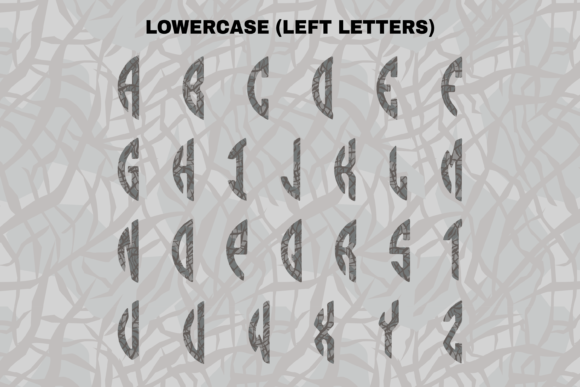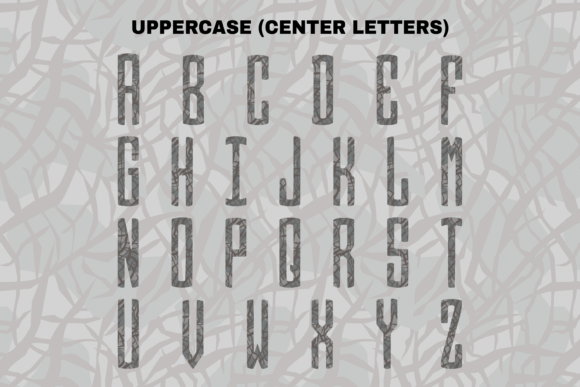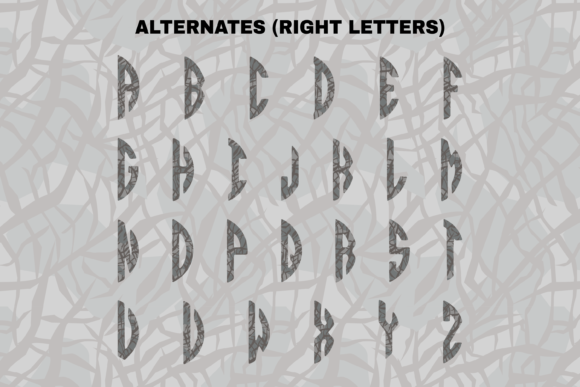
About Elephant Circle Font
Elephant Circle is a unique 3-letter monogram font that features adorable elephant-themed elements. With its customizable nature, this font allows you to create personalized designs effortlessly. Whether you’re working on custom designs, DIY crafts, or any other creative project, Elephant Circle will add a lovely touch. Here are some key features and potential uses for this font:
1. 3-Letter Monogram: Elephant Circle is specifically designed for creating 3-letter monograms. Simply type in your initials, and the font will generate a monogram with cute elephant elements incorporated into the letters. The result is a charming and distinctive design that can be used for a variety of purposes.
2. Customizable: Elephant Circle provides an easy way to customize your monogram. You can experiment with different combinations of initials, letter styles, and color options to achieve a unique and personalized look. Whether you prefer a classic or contemporary aesthetic, this font allows for flexibility and creativity.
3. Versatile Applications: Elephant Circle can be used in various design projects. It’s ideal for creating personal branding materials, such as logos, stationery, and business cards. Additionally, you can incorporate this font into DIY crafts like vinyl decals, home decor, personalized gifts, and more. Its playful and whimsical style adds a touch of charm to any creation.
4. Eye-Catching Design: The cute elephant-themed elements in Elephant Circle make it visually appealing and attention-grabbing. The combination of the monogram format and the adorable illustrations adds a unique flair to your designs, making them stand out and leave a lasting impression.
Embrace the creativity and versatility of Elephant Circle as you use it for custom designs, DIY crafts, and other projects that require a touch of charm. Let this font elevate your creations and bring a delightful element to your monogram designs!